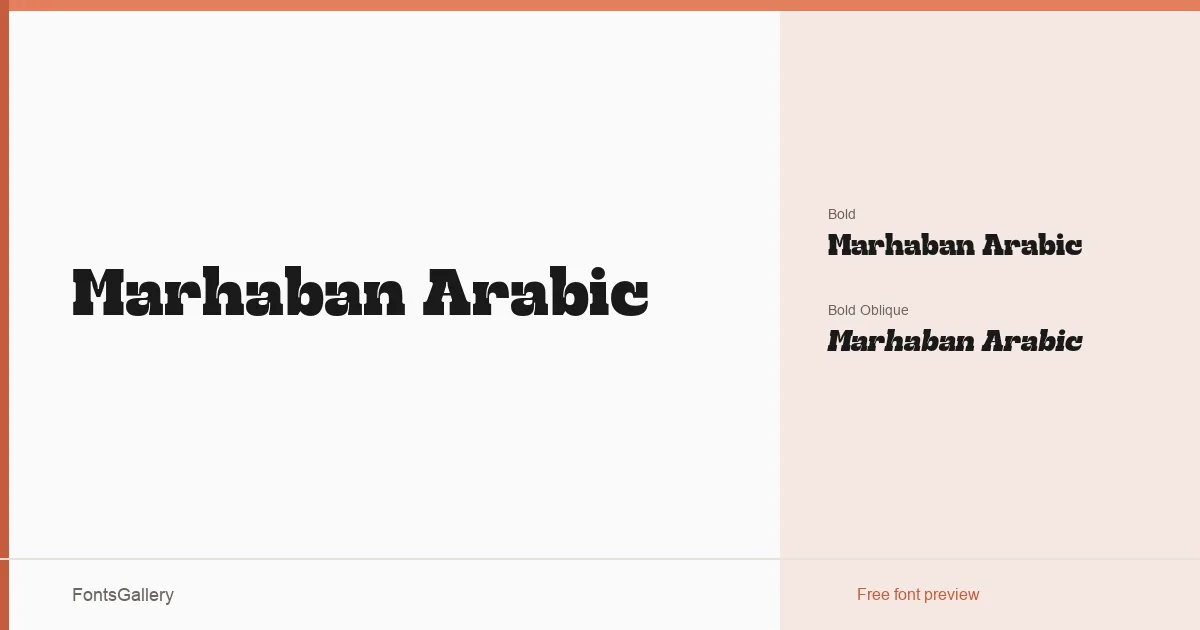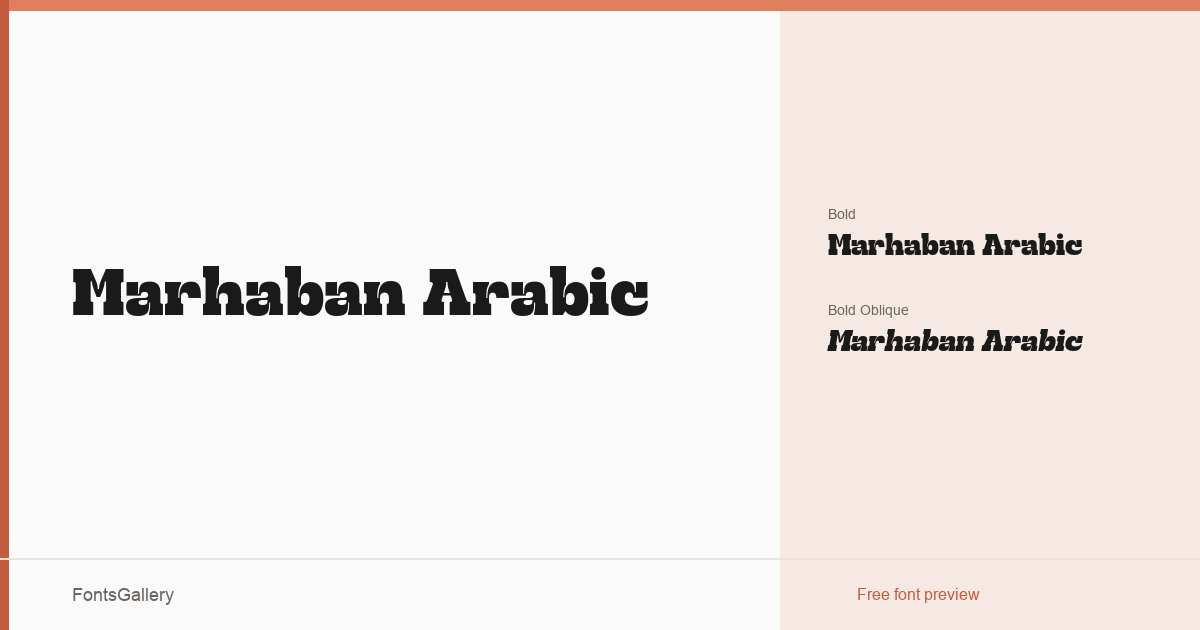
About Marhaban Arabic Font
Marhaban Arabic is an elegant serif typeface crafted by Nur Syamsi & Bustanul Arifin under the Namelatype foundry. Blending vintage character with bold, classic sensibility, it carries a distinctive personality that commands attention. This typeface is a compelling choice for designers seeking a timeless yet striking presence in their work.
Rooted in the serif tradition, Marhaban Arabic exudes a refined elegance with letterforms that feel both classic and boldly expressive. The design draws on vintage influences, lending each character a sense of heritage and sophistication that feels deliberate and composed. Its strong structure and confident strokes make it equally at home in decorative and high-impact typographic settings.
Marhaban Arabic is ideally suited for logos, posters, headlines, branding projects, and magazine layouts where a bold, classic aesthetic is desired. Its commanding presence makes it a natural focal point in any visual composition. It pairs beautifully with clean, modern typefaces such as Helvetica or the stylish curves of Ballmain for a balanced typographic contrast.